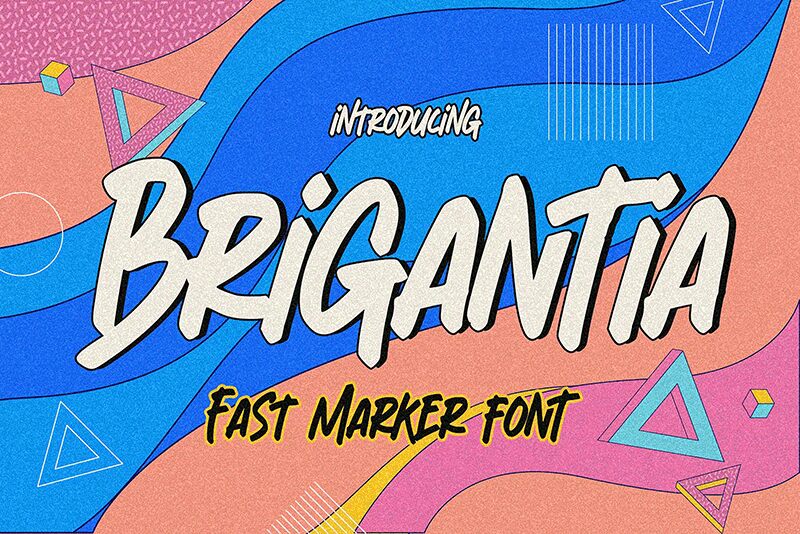
Brigantia
Brigantia font by Gassstype is a playful and energetic handwritten typeface with a casual yet dynamic visual style. It is a free font with condensed letters which allows for amazing creativity and visual aesthetics when used. Each letter began its journey as a pen-on-paper sketch which was later scanned, vectorized, and digitized. However, the essence of the typeface’s originality surely remains obvious in the final product.
Brigantia font adds authenticity to branding, packaging, labels, greeting cards, and postcards. It adds personality to advertising posters and magazine/social media ads or headers/titles for kids’ storybooks and history books.